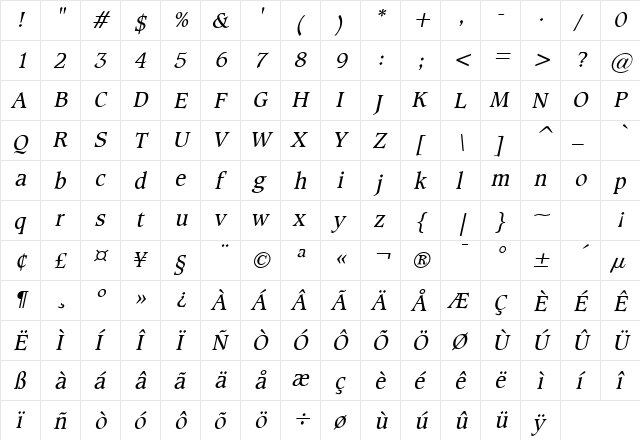
Clayton Italic
Design Context for Clayton Typeface
Clayton takes a measured approach to typography — its balanced proportions and neutral character make it a reliable workhorse for both digital and print work. The slanted form adds forward momentum and visual energy.
Pro Tip: Use Clayton for emphasis, pull quotes, and subheadings where its slanted energy can add rhythm to the layout.